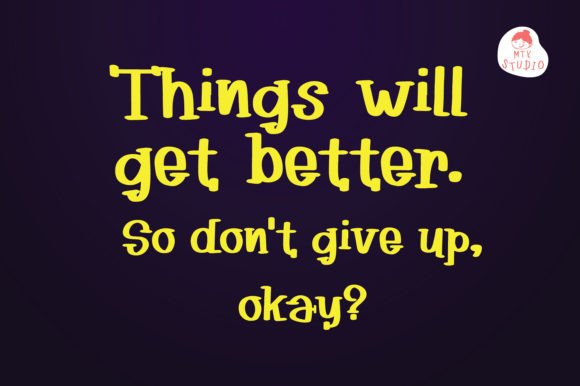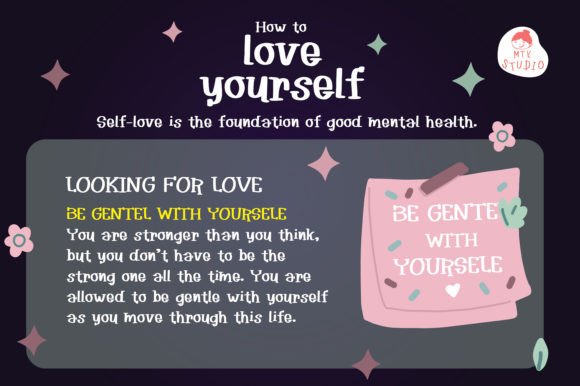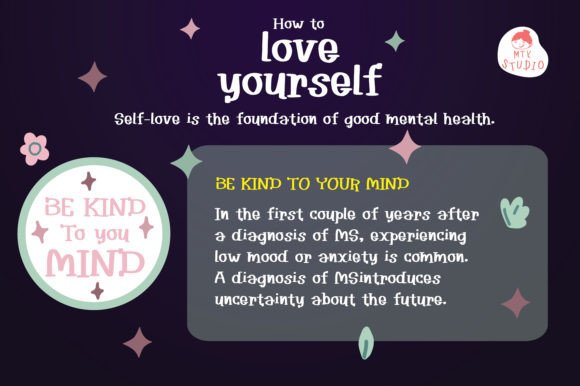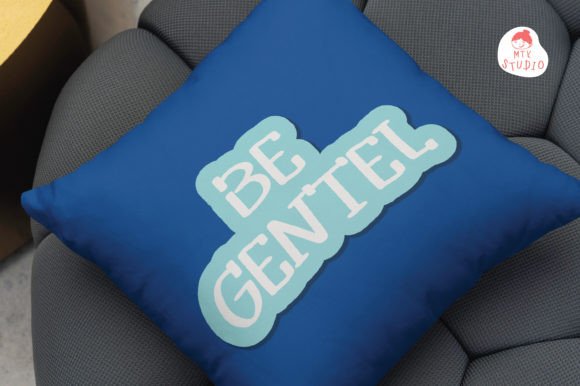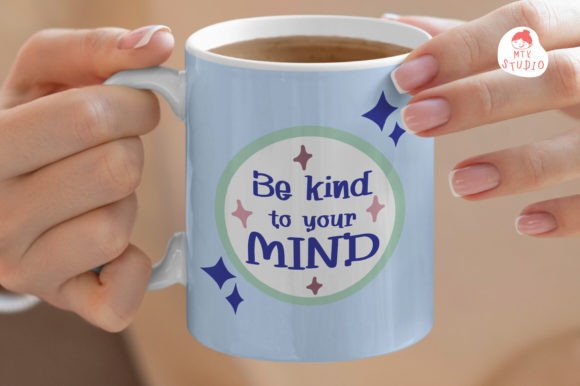
Adding a Splash of Personality to Your Designs
Have you ever found yourself staring at a blank canvas, trying to come up with the perfect font to match your creative vision? You’ve got a bold idea, but the right words just aren’t coming together. That’s where the magic of Be Bold Font comes in – a charming, playful font that’s sure to bring your designs to life.
Be Bold Font is more than just a font, it’s a statement. With its big, confident letters and cheerful handwriting style, it’s the perfect addition to any design that needs a touch of fun and personality. Whether you’re a seasoned designer or just starting out, Be Bold Font is a valuable tool in your creative arsenal.
Be Bold Font Key Features
- Unique Characteristics: Be Bold Font features a distinctive, modern design with bold lines and geometric shapes, making it perfect for headlines, titles, and other attention-grabbing text.
- Font Family: Be Bold Font is part of a comprehensive font family, offering a range of weights and styles to suit different design needs.
- Language Support: The font includes support for multiple languages, including Latin, Cyrillic, and Greek alphabets, making it suitable for global design projects.
- Scalability: Be Bold Font is designed to be highly scalable, ensuring that it looks great in both small and large sizes, from body text to massive headlines.
Designer Review: Be Bold Font
When I first laid eyes on Be Bold Font, I was immediately drawn to its confident and eye-catching aesthetic ✨. The font’s unique blend of modern and vintage elements gives it a truly distinctive look that’s sure to turn heads. I love how it can add a touch of sophistication and elegance to any design project.
One of the standout features of Be Bold Font is its excellent legibility ✨. The font is clear and easy to read, even at smaller font sizes, making it perfect for headings, titles, and other display text. Additionally, the font’s bold weight gives it a strong presence on the page, making it ideal for use in advertising and marketing materials.
- ⚠️ Limited character set: Be Bold Font may not be suitable for use in languages that require a wider character set, such as Asian languages.
- ⚠️ Limited font sizes: While the font is clear at smaller sizes, it may become too bold or overwhelming at larger sizes.
Overall, I think Be Bold Font is a great addition to any designer’s toolkit ✨. With its unique look and excellent legibility, it’s perfect for designers who want to add a touch of personality to their projects. However, its limitations should be taken into consideration before using it in certain contexts.
Be Bold Font: A Practical Application Guide
Be Bold Font is ideal for creating attention-grabbing headlines, titles, and headings. It’s also great for highlighting important information or creating a sense of hierarchy.
- Product names and logos
- Call-to-actions and buttons
- Infographics and charts
Impact Font
Impact Font is a sans-serif typeface that is ideal for headings and titles. It is often used in display typography due to its bold and dramatic appearance. Impact Font is similar to Be Bold Font in its boldness, but it has a more condensed and upright feel to it.
Akzidenz Grotesk
Akzidenz Grotesk is a classic sans-serif typeface that is known for its clean and modern appearance. It is often used in body text and headings where a bold and legible font is required. Akzidenz Grotesk is a more versatile font compared to Be Bold Font, with a wider range of weights and styles available.